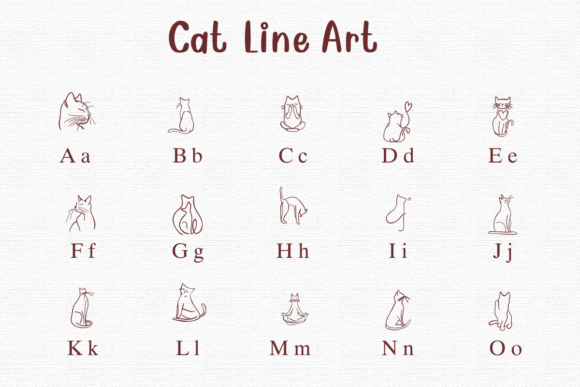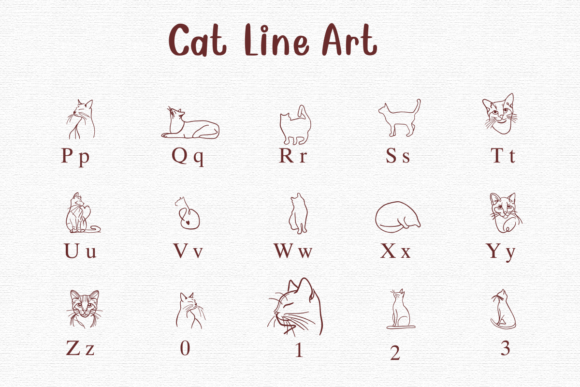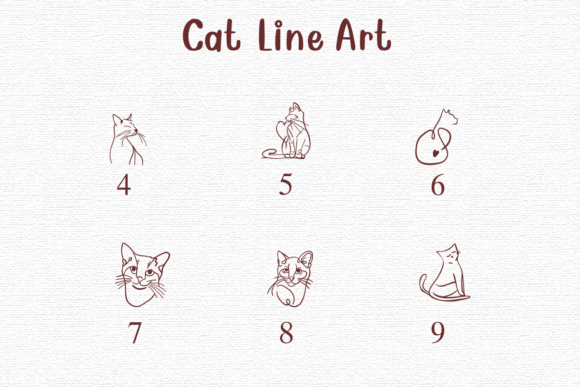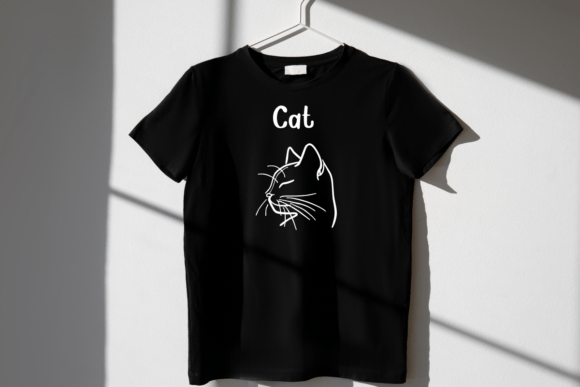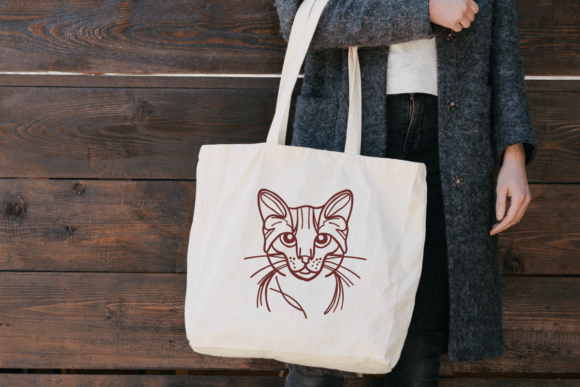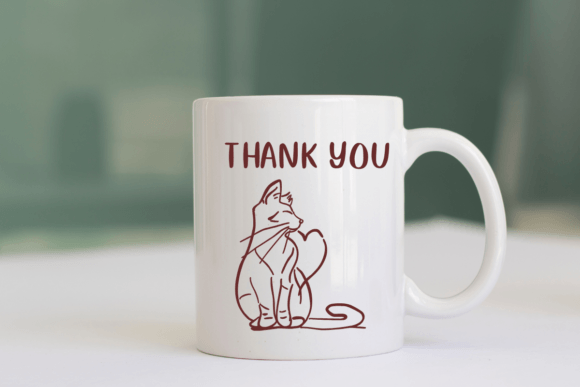
Introducing Cat Line Art Font: The Purrfect Addition to Your Design Projects
Are you a designer or crafter looking for a unique and playful way to add some feline charm to your projects? Look no further than the Cat Line Art Font! This fun and whimsical dingbat font features simple, stylized drawings of cats that are sure to delight cat lovers of all ages.
What is Cat Line Art Font?
Cat Line Art Font is a special type of font that replaces traditional letters with adorable cat designs. Instead of typing out boring old letters, each character on the keyboard displays a different cat illustration, ranging from cute and cuddly to sassy and playful. Whether you’re working on a graphic design project, creating crafts, or just want to add some personality to your digital communications, this font is sure to bring a smile to your face.
Key Features of Cat Line Art Font
- Unique and Playful Designs: Each character in the Cat Line Art Font features a different cat design, ensuring that your projects will stand out from the crowd.
- Versatile: Use Cat Line Art Font in a variety of projects, from digital graphics and social media posts to craft projects and party invitations.
- Scalable: The font is highly scalable, making it perfect for use in both small and large designs.
Uses for Cat Line Art Font
The possibilities are endless when it comes to using Cat Line Art Font! Here are a few ideas to get you started:
- Graphic Design Projects: Add a touch of whimsy to your brochures, flyers, and posters with this fun and playful font.
- Craft Projects: Use Cat Line Art Font to add custom text to your craft projects, such as iron-on designs, stickers, and stencils.
- Social Media Posts: Stand out on social media with eye-catching graphics featuring Cat Line Art Font.
- Party Invitations: Create custom party invitations that are sure to delight cat-loving kids and adults alike.
Tips for Using Cat Line Art Font
Here are a few tips to keep in mind when using Cat Line Art Font:
- Mix and Match: Combine Cat Line Art Font with other fonts and design elements to create visually interesting and dynamic designs.
- Keep it Simple: Don’t be afraid to keep things simple and use the font on its own – sometimes, less is more!
Cat Line Art Font is a fun and playful dingbat font that’s sure to bring a touch of feline charm to your design projects. With its unique and playful designs, ease of use, and versatility, this font is perfect for designers and crafters of all skill levels. So why wait? Download Cat Line Art Font today and start adding some whimsy to your projects!